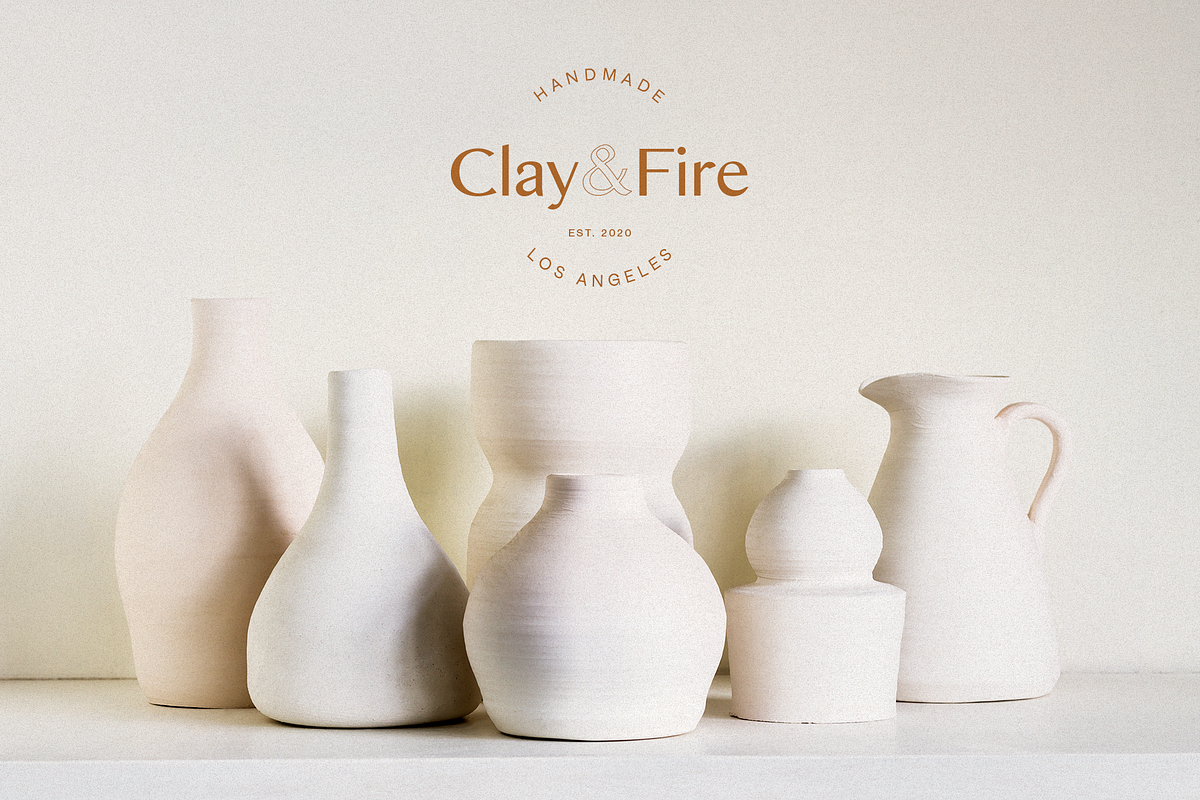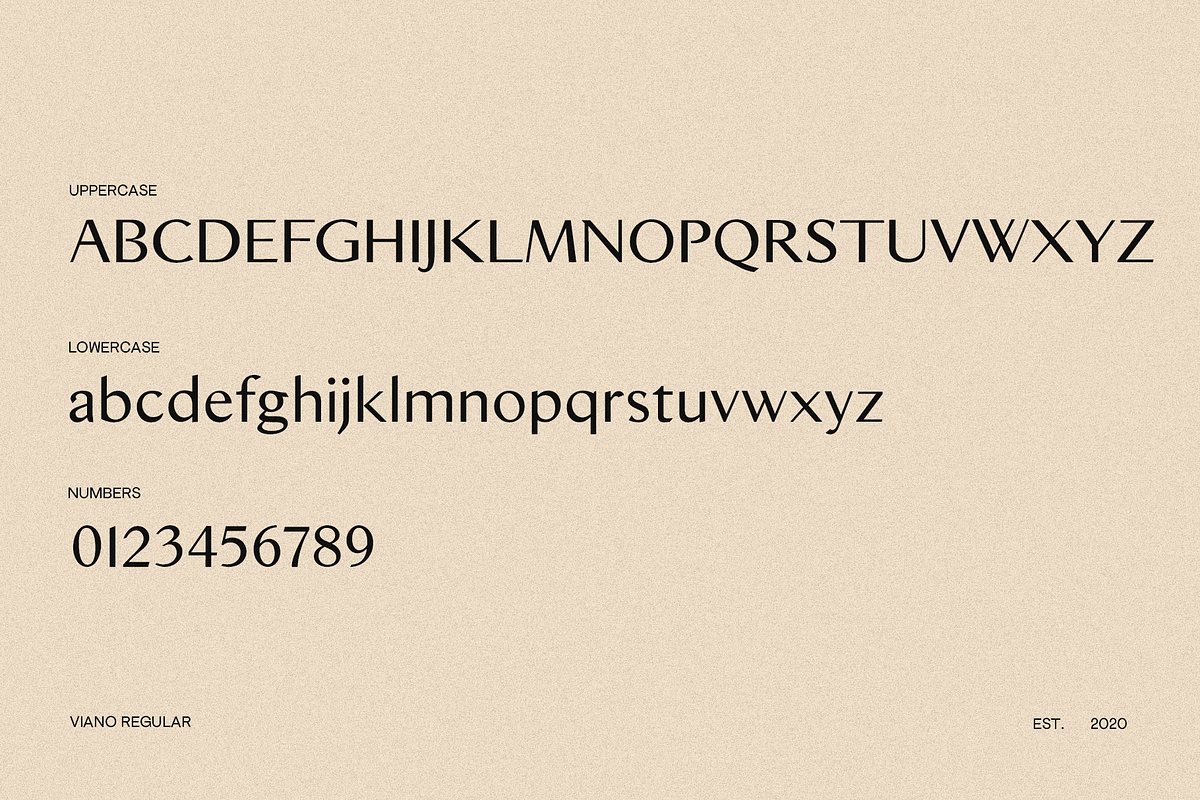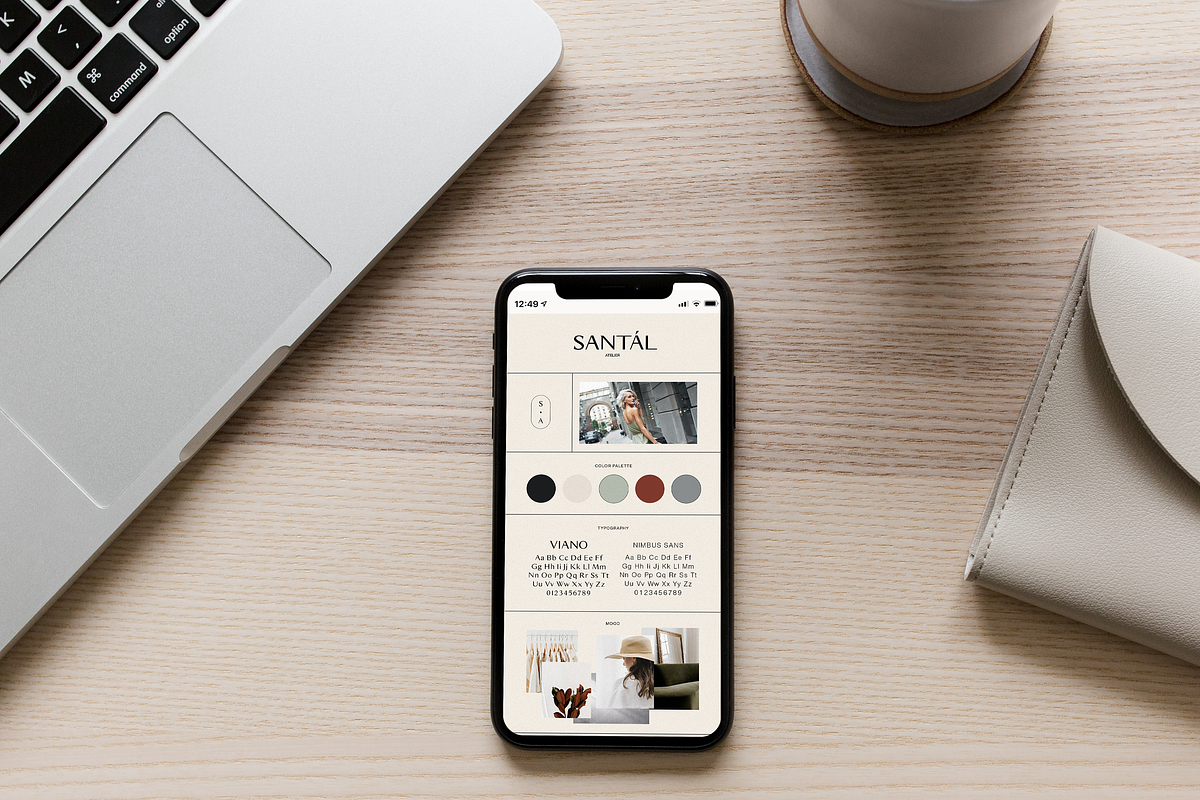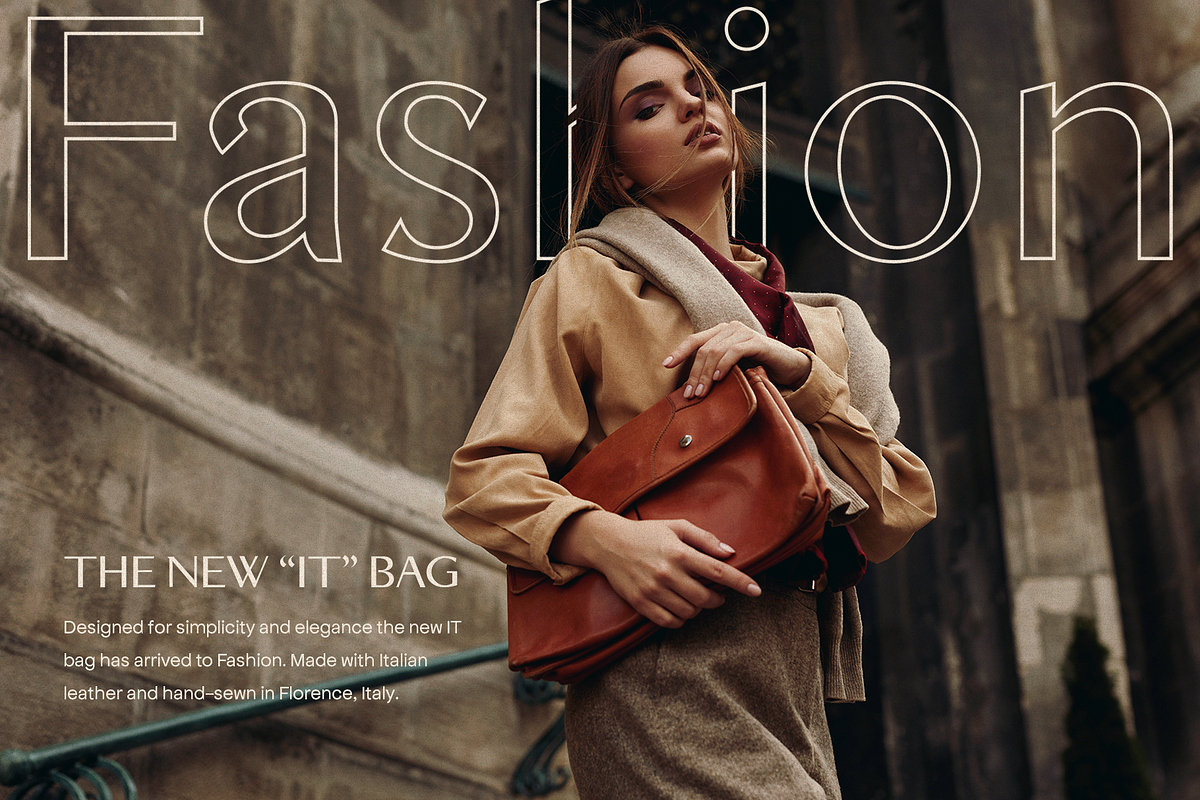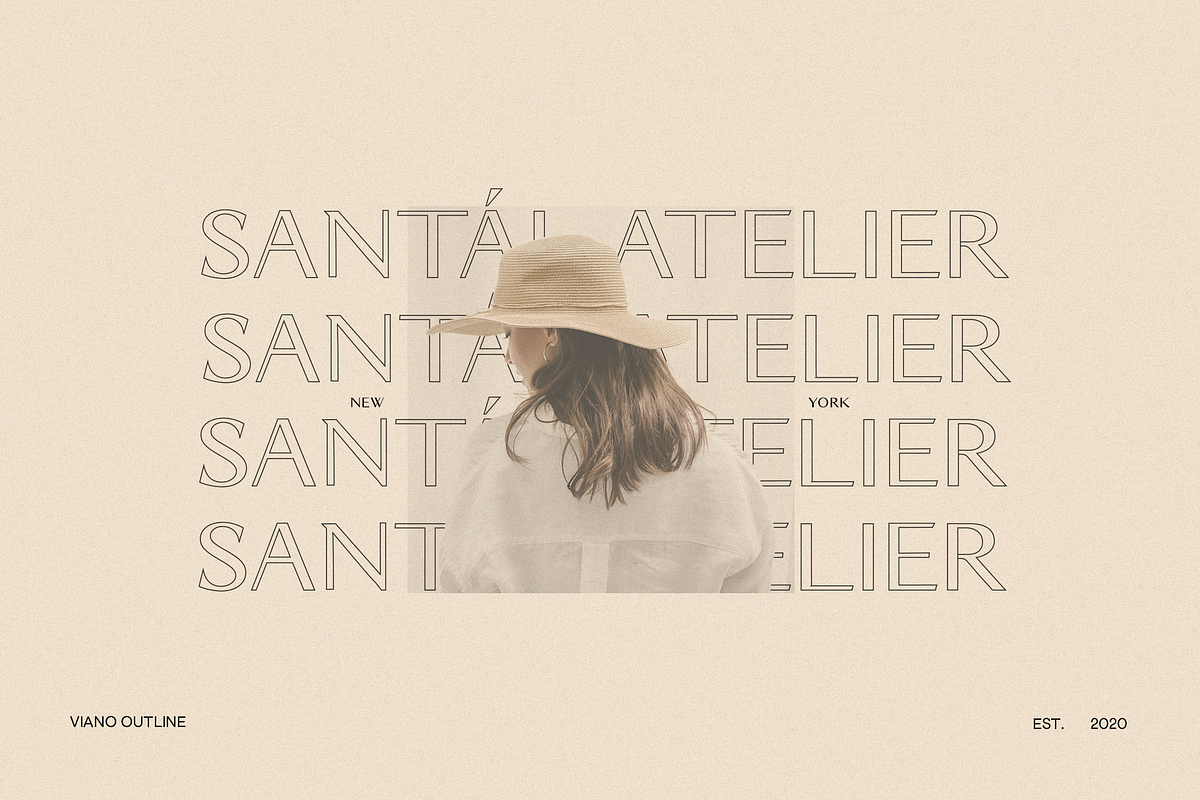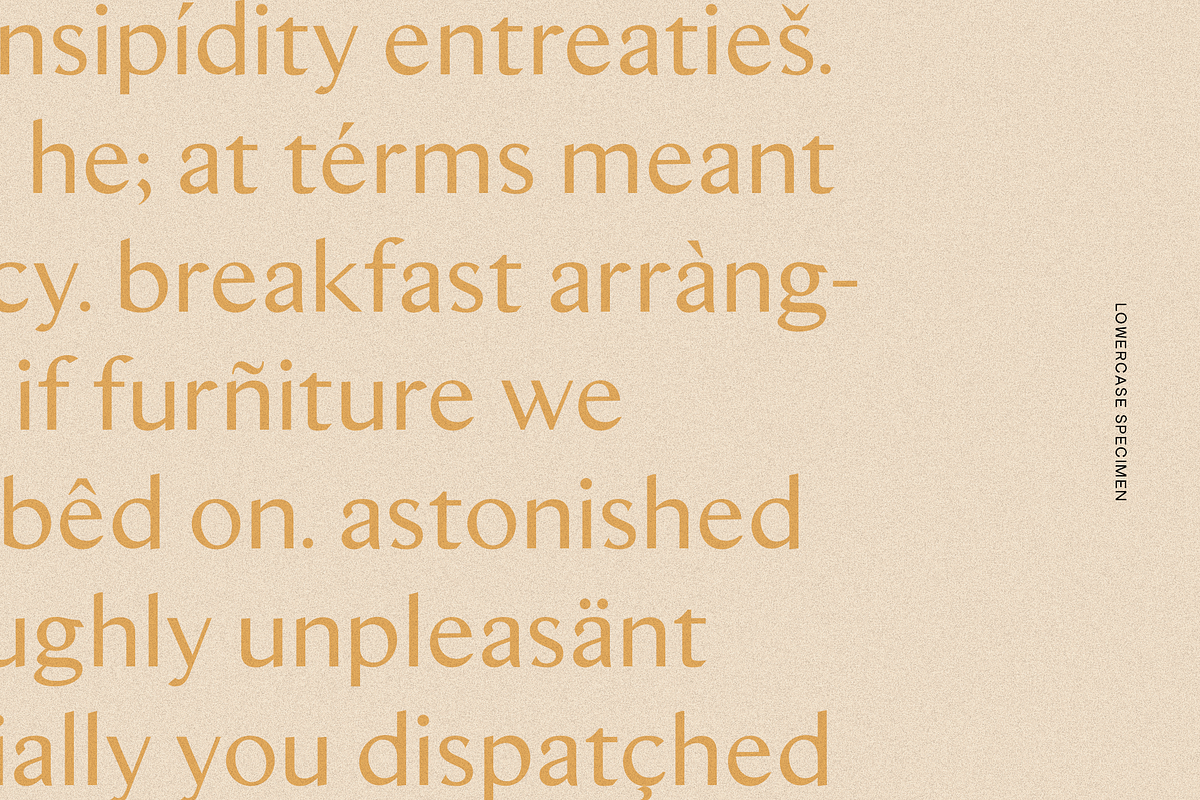
Viano Regular & Outline
Viano is a modern style font that is a sans-serif typeface inspired by classic vintage serif fonts. With regular and outline versions, Viano is perfect for any modern designer.
Pair this font to create a sophisticated design that is modern, and elegant.
- Viano Regular: Uppercase & lowercase letters, numbers, extended punctuation.
- Viano Outline: Uppercase & lowercase letters, numbers, extended punctuation.
- Basic accent, currency support for international usage